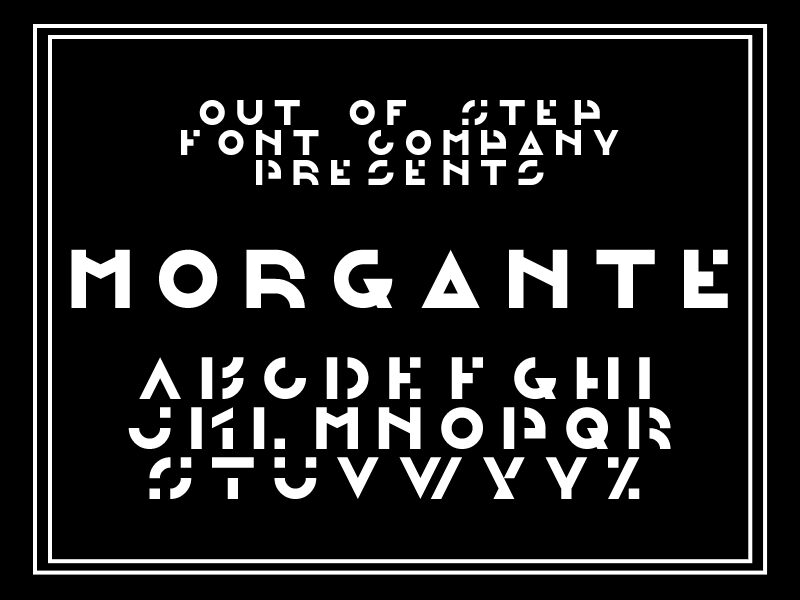
Morgante Regular
Morgante is a decorative ulra-modern sans serif font inspired by the work of Angelica Baini and Marco Oggian. Upper case letters are more open and airy than the lower case letter set. A number set is also included.